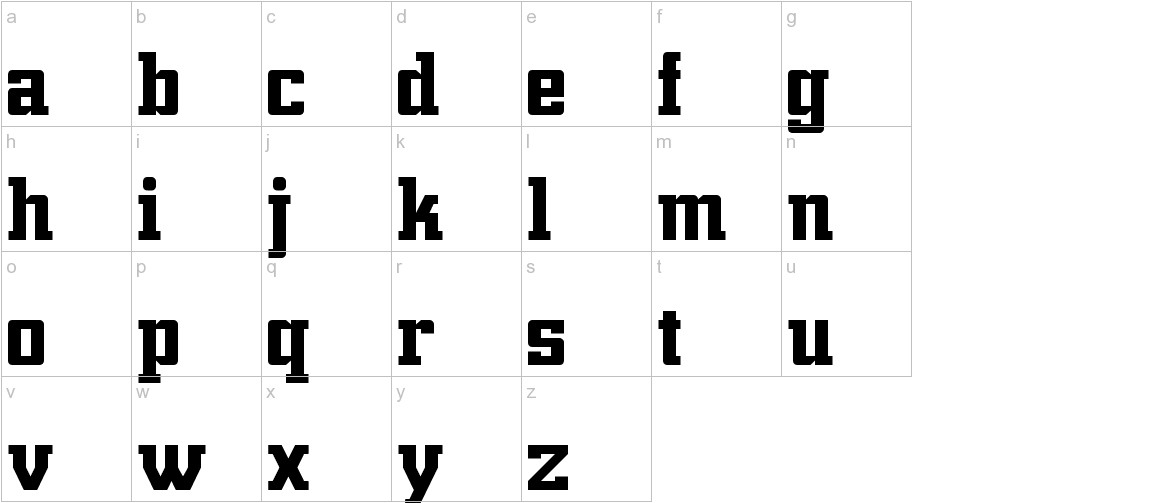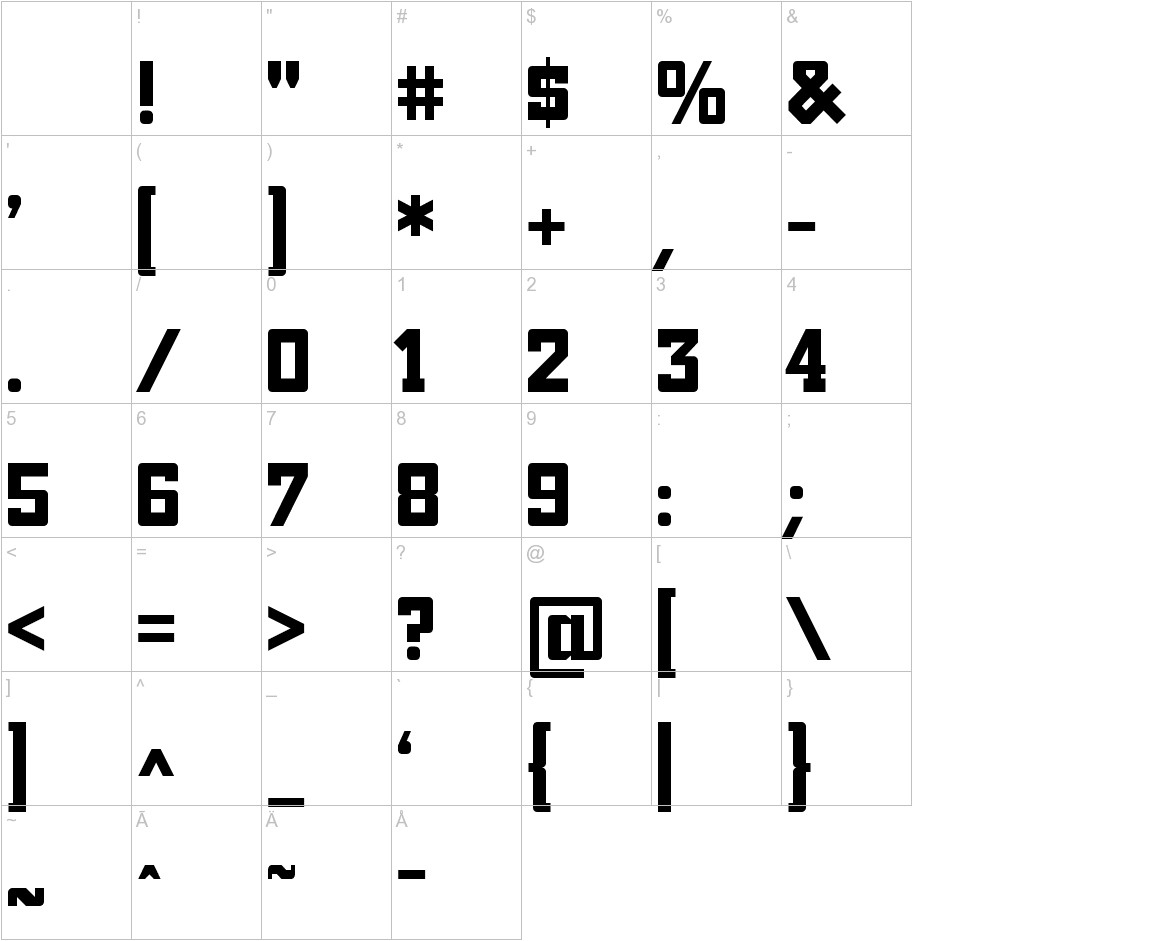
Trump Town Pro
Based on and adapted from Georg Trumps classic from 1930.
This font was originally made with FontStruct but this Pro version have cleaned up outlines, quite a few tweaked letterforms (because of FontStructs limitations ;) , corrected spacing, and added kerning and hinting... It has also been scaled - and some additional diacritics added.